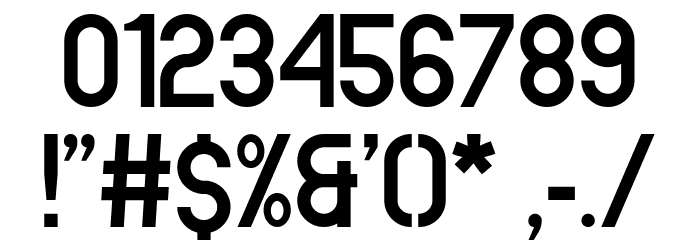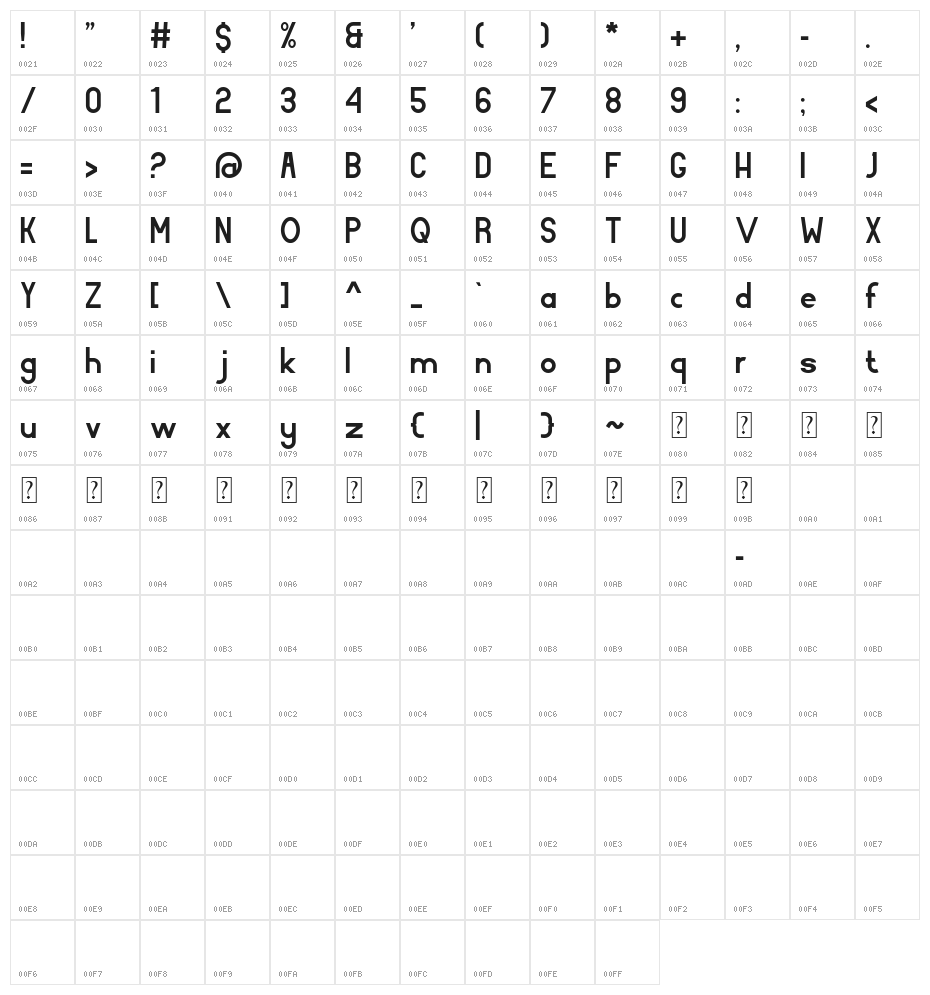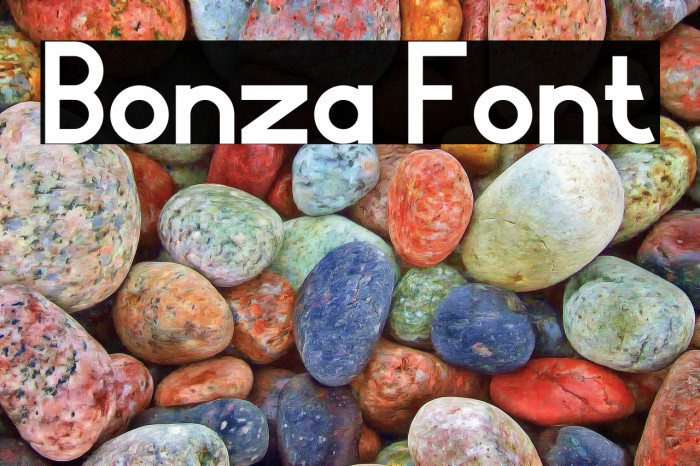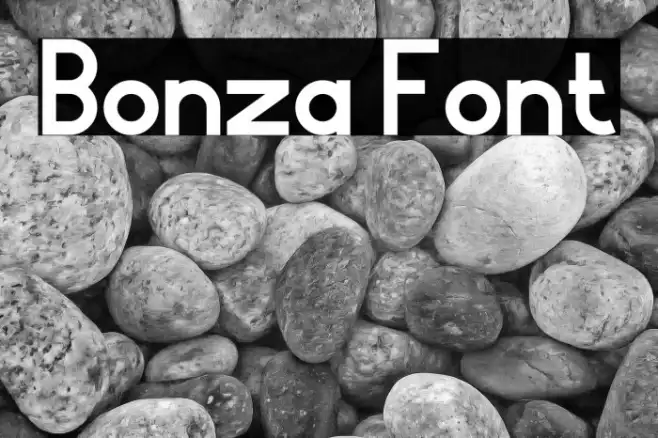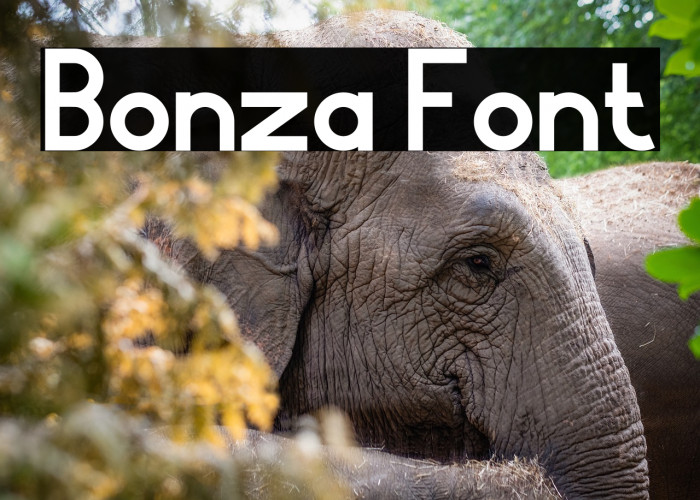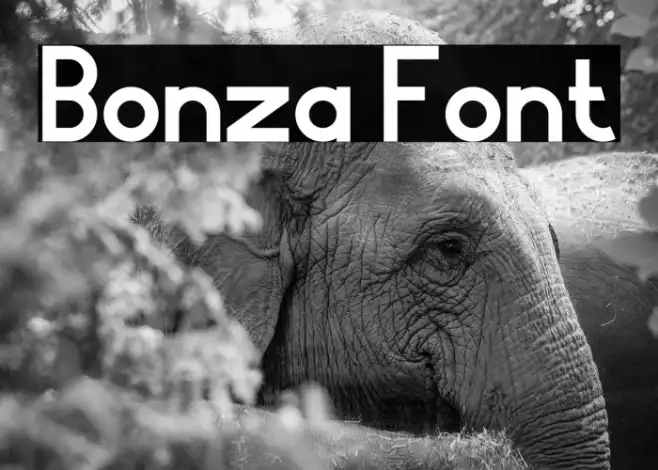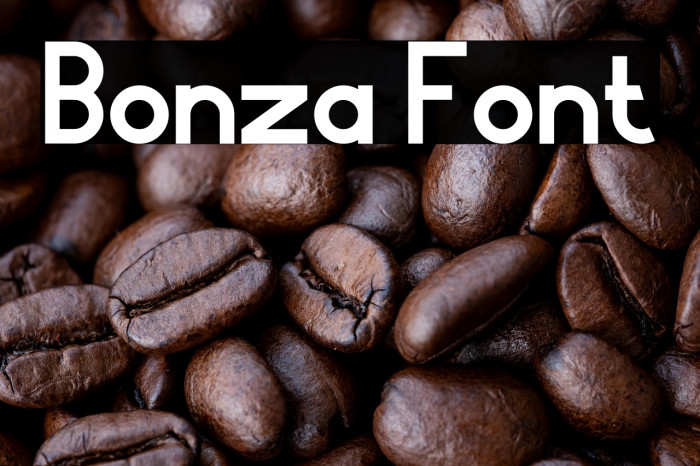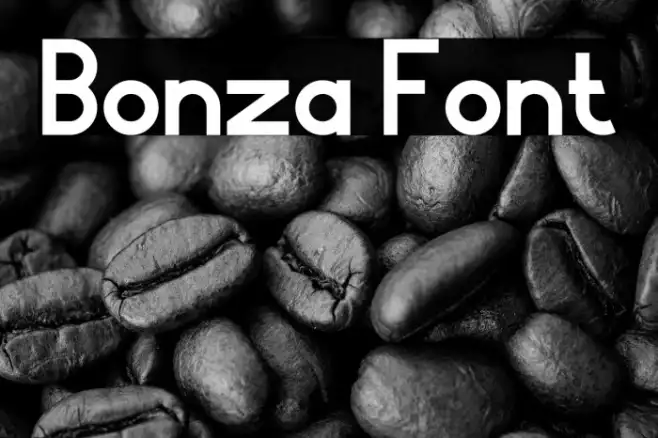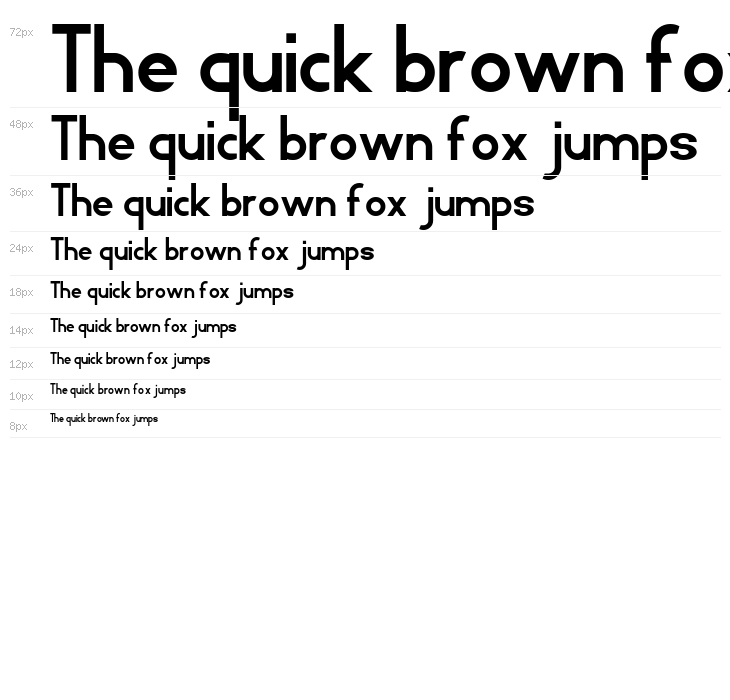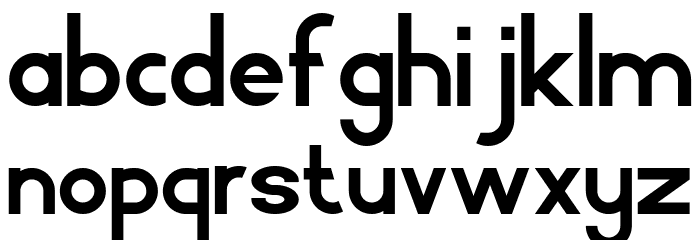
Bonza Font
Bonza Description
This font exhibits a bold and modern aesthetic with clean, geometric lines. The uppercase letters are tall and slightly condensed, giving a strong and assertive presence. The lowercase letters maintain a consistent height, contributing to a harmonious and balanced look. The numerals are clear and legible, matching the boldness of the alphabetic characters. Special characters are well-integrated, maintaining the overall style. The font's simplicity and clarity make it suitable for a variety of applications, from digital to print media.